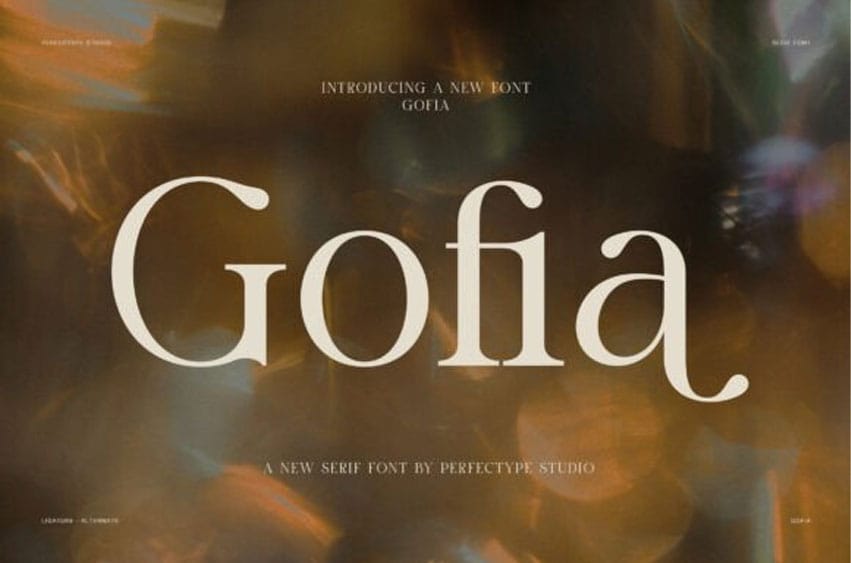
Gofia Font is an elegant ligature serif font that blends timeless sophistication with a fresh contemporary touch. Designed for designers, creative studios, and premium brands, this typeface delivers graceful letterforms, refined proportions, and artistic ligatures that instantly elevate every design.
As a result, Gofia creates a memorable visual identity that feels both luxurious and approachable.